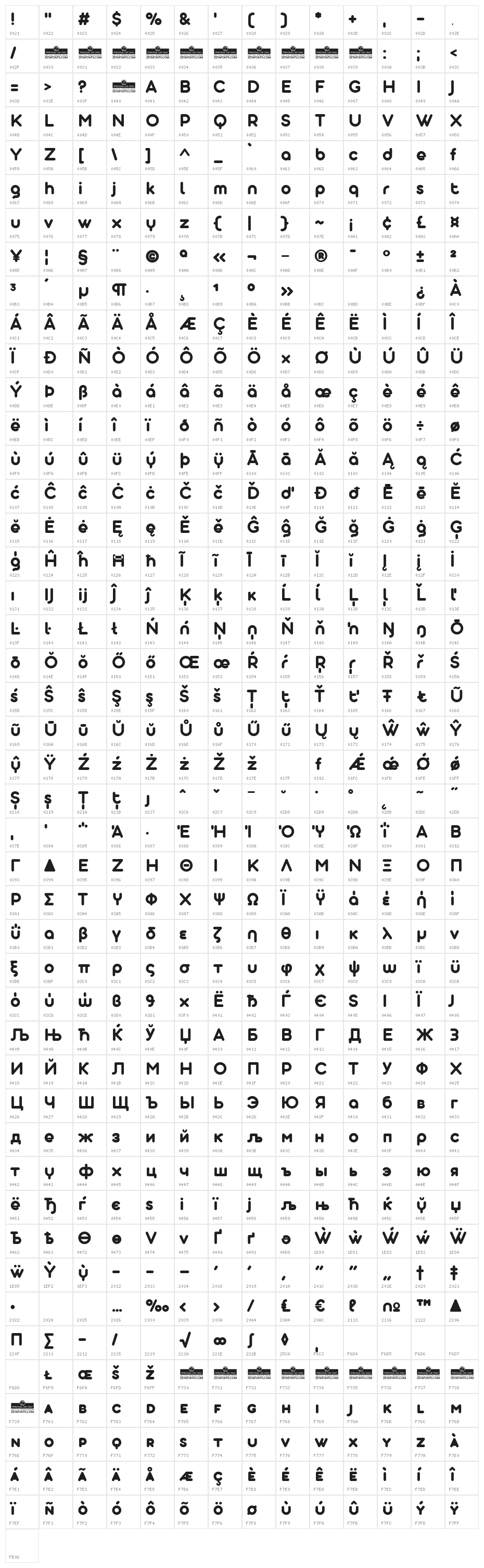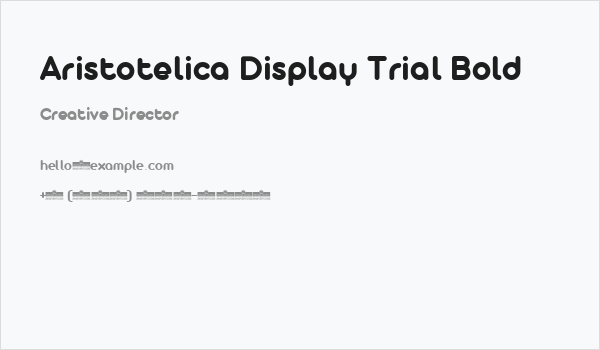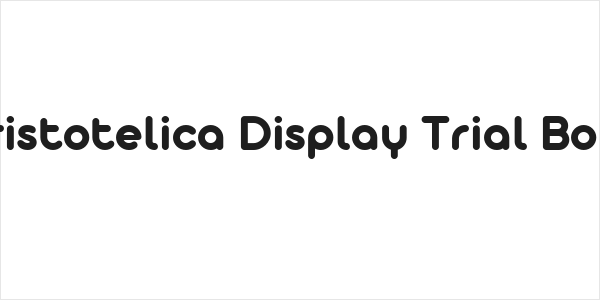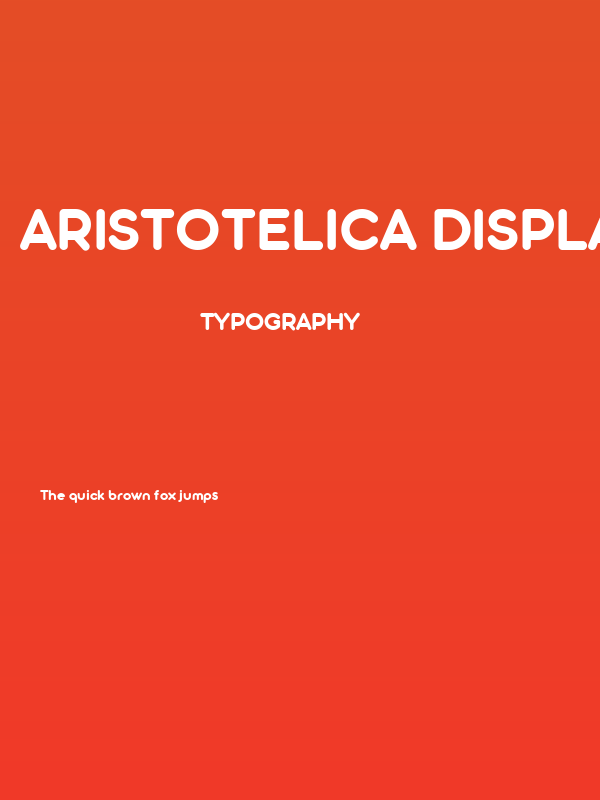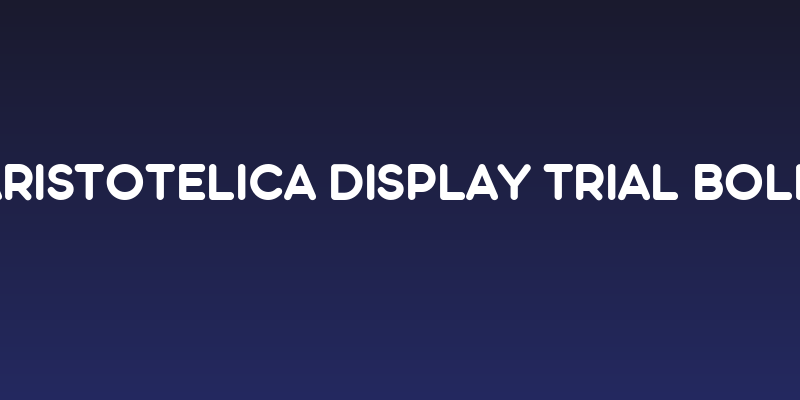
Aristotelica Display Trial Bold Font
Aristotelica Display Trial Bold Description
This font features a bold and rounded style, characterized by its smooth, flowing curves and uniform stroke width. The letters are well-balanced, with a modern and friendly appearance, making it highly legible and approachable. The uppercase and lowercase letters maintain a consistent style, with rounded terminals and a geometric structure. The numerals and special characters follow the same design principles, ensuring a cohesive look across all glyphs. This font is versatile, suitable for both digital and print media, and can be used in various design contexts.
| Proposed Projects | Ideal for branding, advertising, packaging, and web design projects that require a modern and approachable look. |